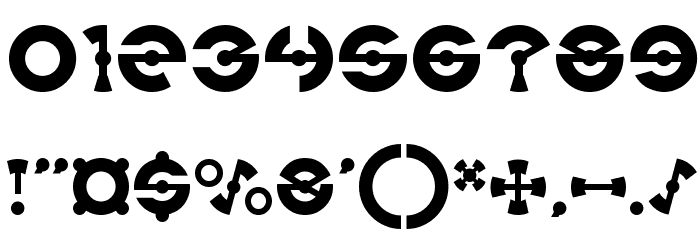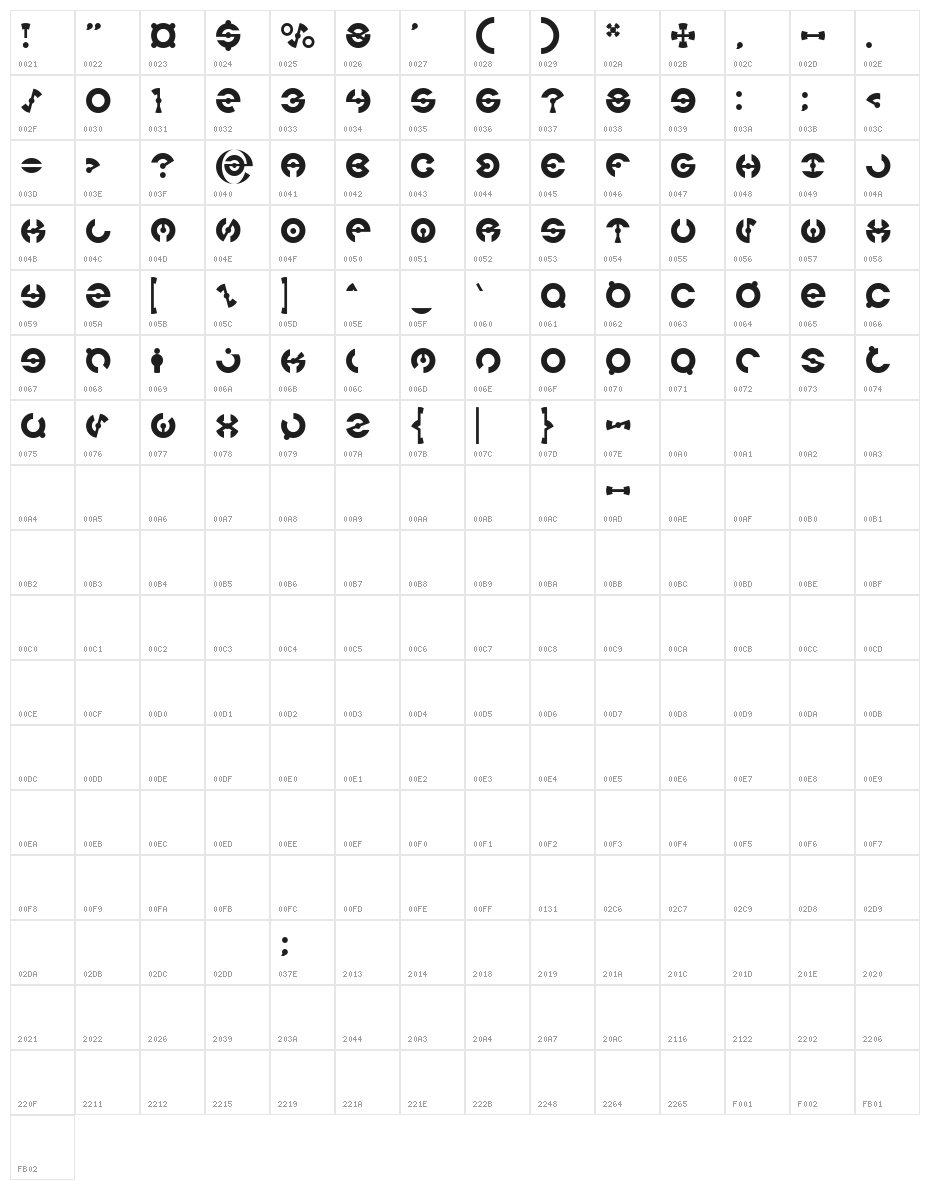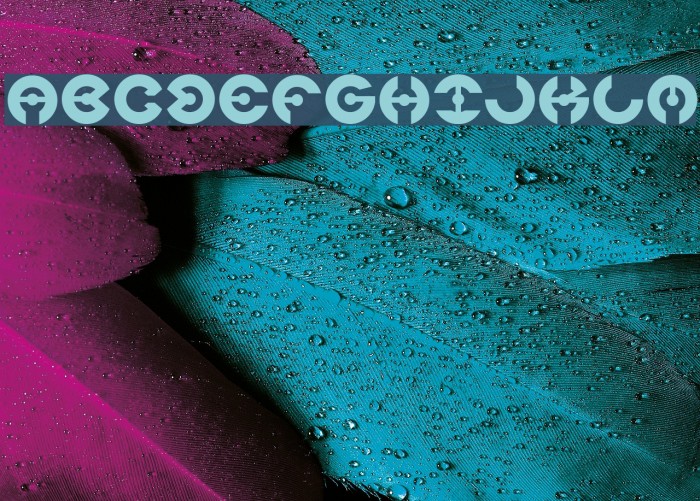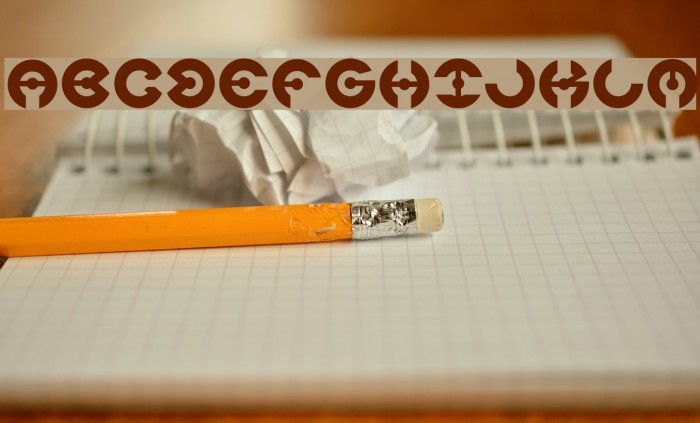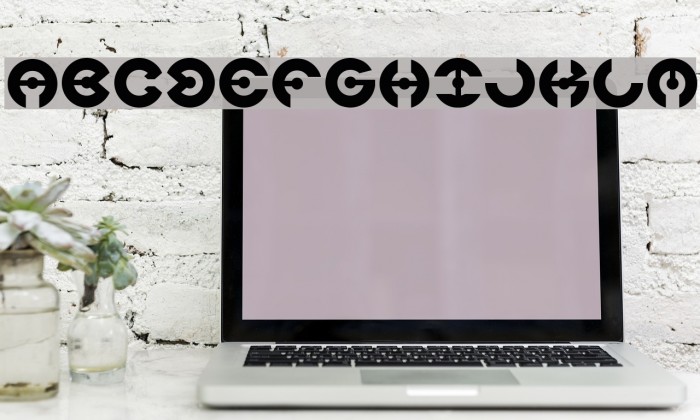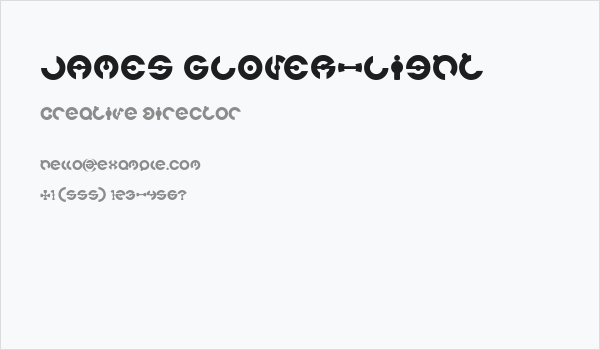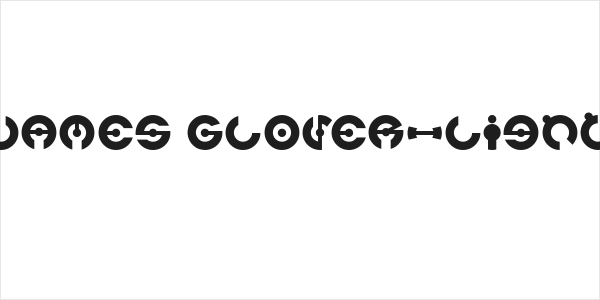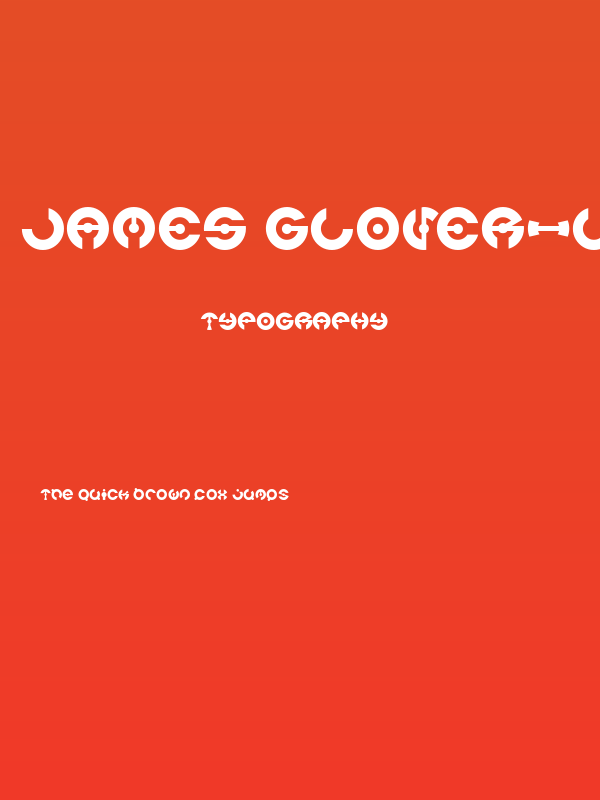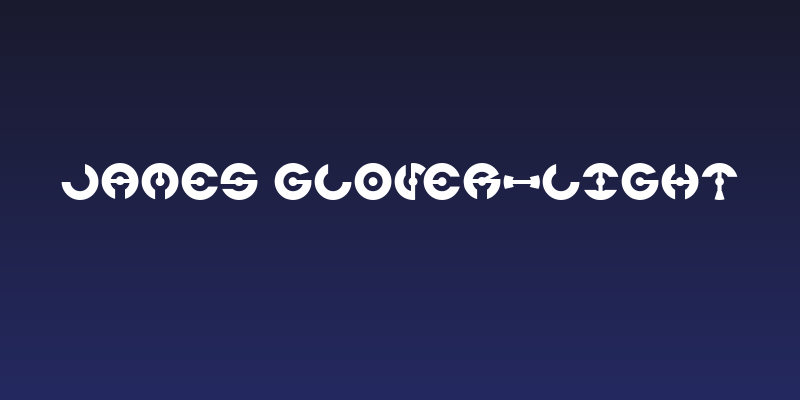
JAMES GLOVER-Light Font
JAMES GLOVER-Light Description
This font features a unique, futuristic design with geometric shapes and bold, circular elements. Each character is crafted with a distinct style that incorporates both solid and open spaces, creating a striking visual impact. The uppercase and lowercase letters maintain a consistent theme, with rounded edges and symmetrical forms. Numbers and special characters follow the same design principles, ensuring a cohesive look across all glyphs. The font's boldness and modern aesthetic make it stand out, while its artistic flair adds a touch of creativity to any project.
| Proposed Projects | Ideal for sci-fi themed designs, technology branding, modern posters, and innovative product packaging. |